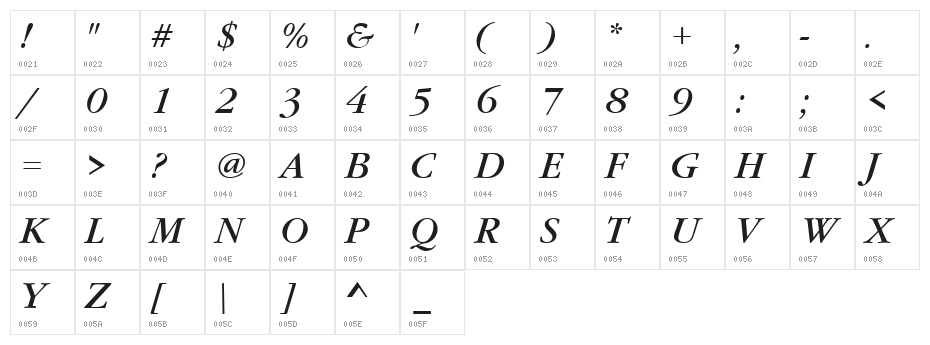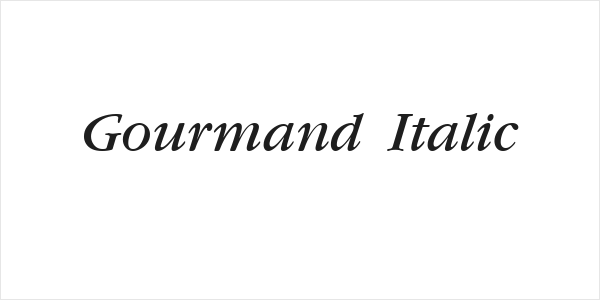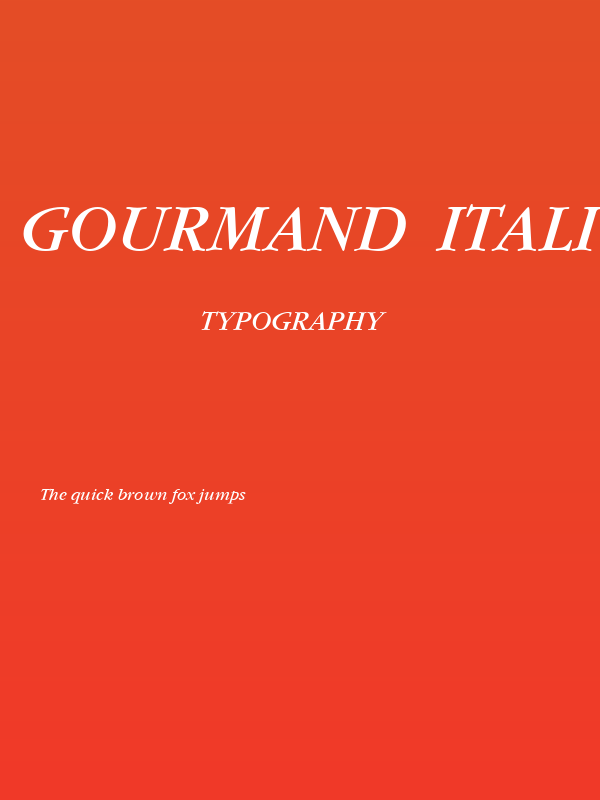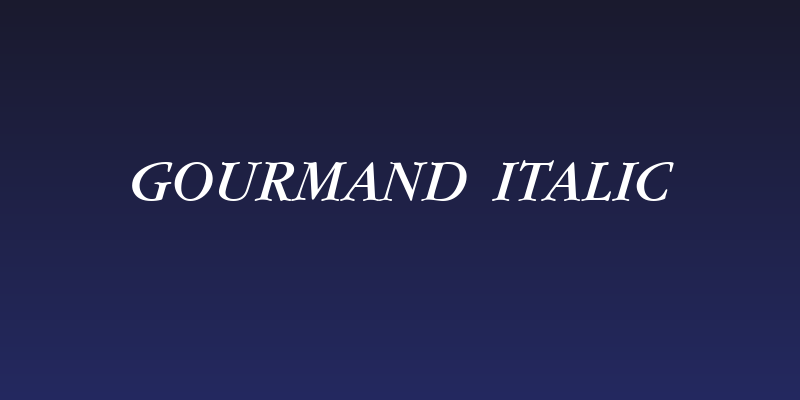
Gourmand Italic Font
Gourmand Italic Description
This elegant font features a classic italic style with smooth, flowing curves and a sophisticated appearance. The characters exhibit a slight slant to the right, enhancing the graceful and refined look. The uppercase letters are bold and commanding, while the lowercase letters maintain a delicate balance, offering a harmonious blend of strength and elegance. The numerals are clear and distinct, ensuring readability. Special characters are crafted with attention to detail, adding to the font's versatility. This font is ideal for projects that require a touch of class and sophistication.